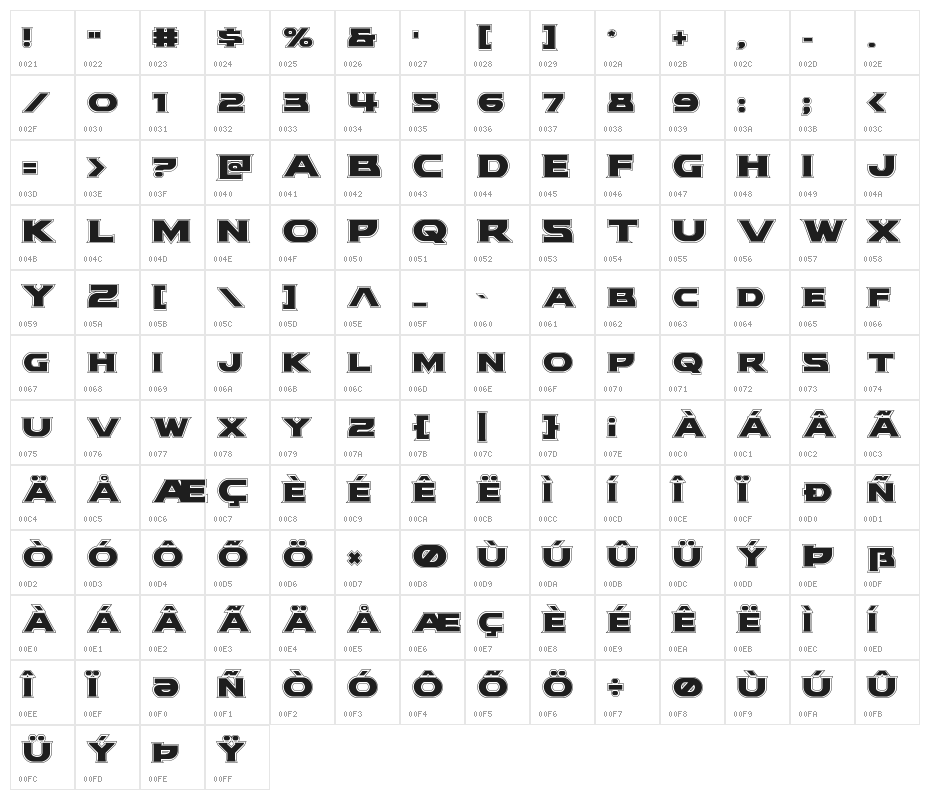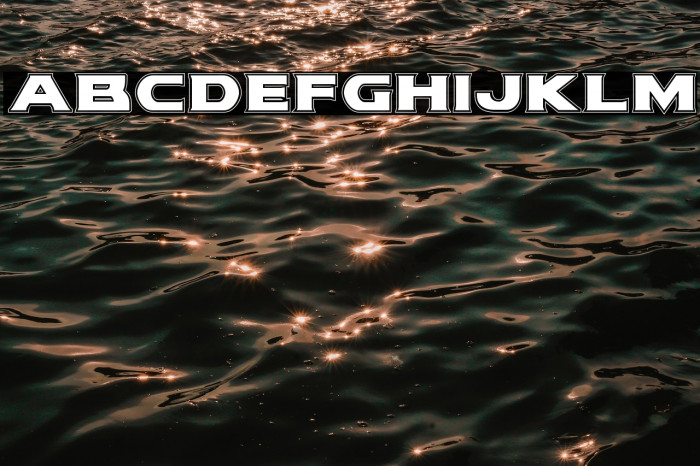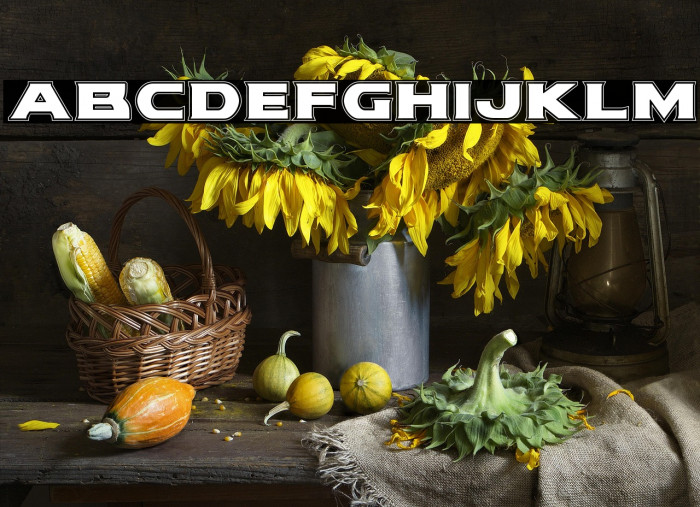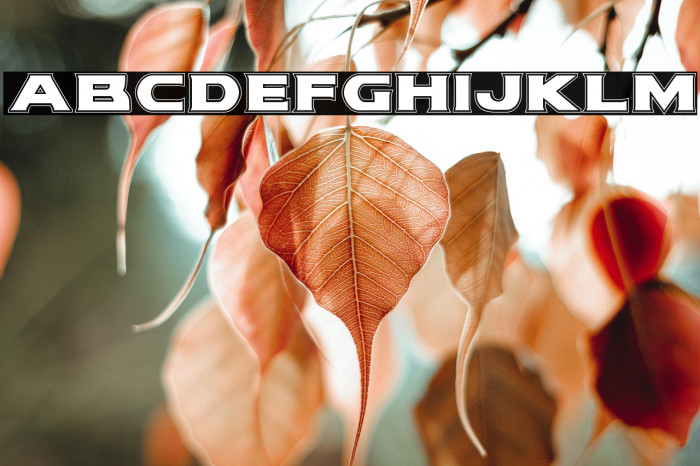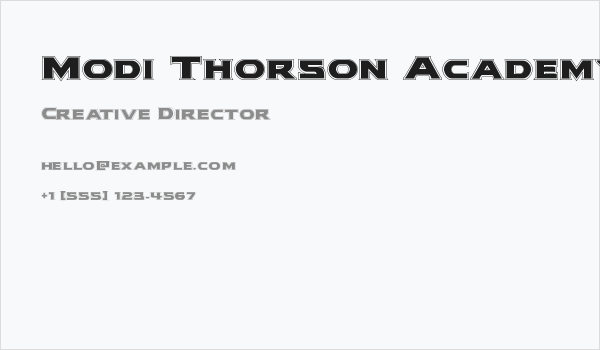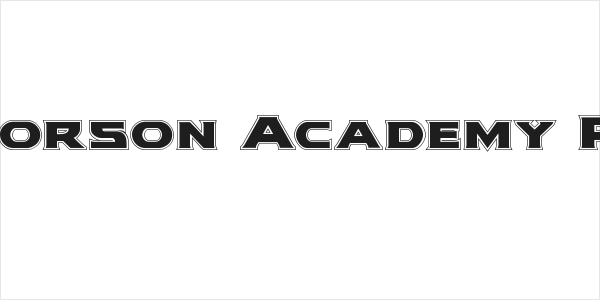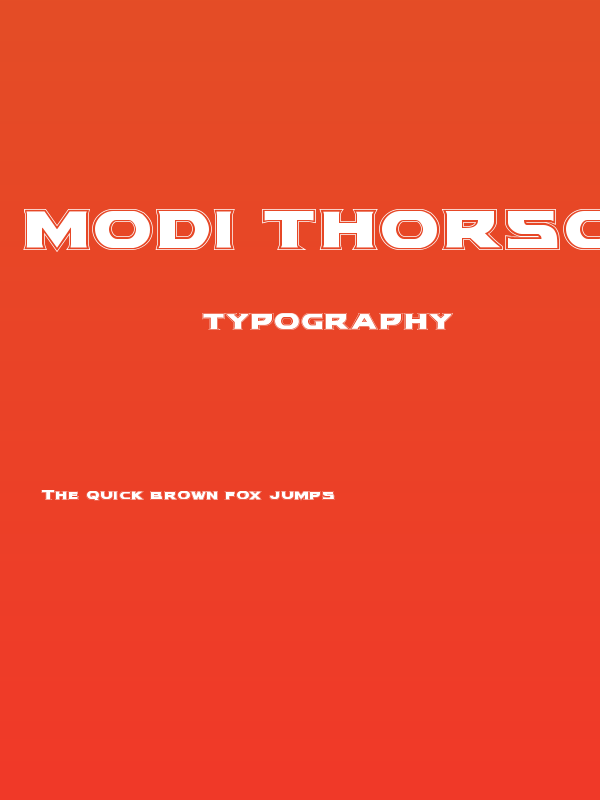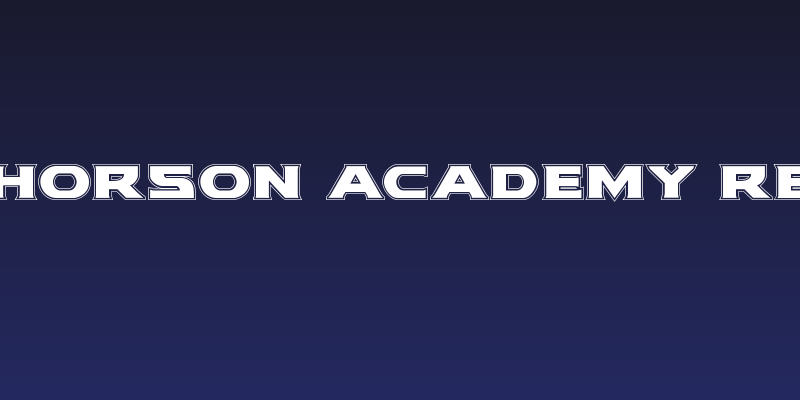
Modi Thorson Academy Regular Font
Modi Thorson Academy Regular Description
This font features a bold and striking design with a strong presence. The characters are outlined with a thick border, giving them a three-dimensional appearance. The uppercase and lowercase letters maintain a consistent style, with angular edges and a geometric structure. The numbers and special characters follow the same aesthetic, ensuring uniformity across all elements. This font is ideal for projects that require a bold statement and a modern, edgy look.
| Proposed Projects | Perfect for posters, logos, video game titles, and any design needing a bold, impactful typeface. |